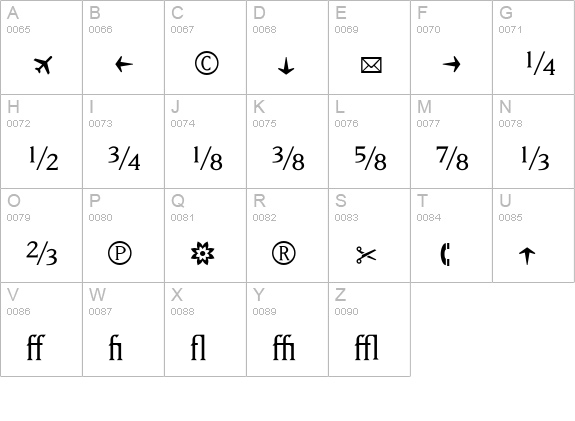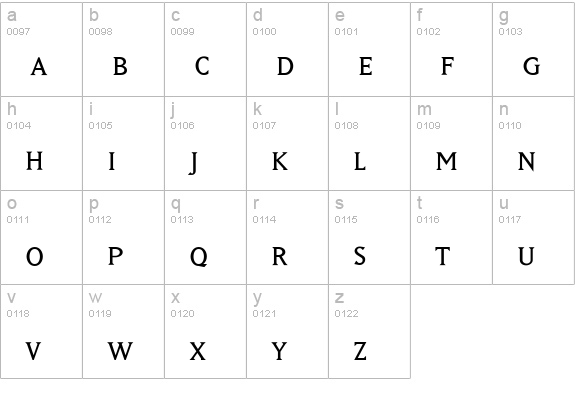
MatrixFractions-Book Font Details
MatrixFractions-Book is a comfortable, highly readable variant in the MatrixFractions typeface family \xE2\x80\x94 well suited to long-form body text, articles, and editorial content.
MatrixFractions-Book is a sleek and elegant font designed for those who appreciate clean lines and modern aesthetics. With its precise geometric shapes and balanced proportions, this font is perfect for adding a touch of sophistication to any design project. The MatrixFractions-Book font features a unique blend of classic serif elements with a contemporary twist, making it versatile and suitable for a wide range of applications. What sets MatrixFractions-Book apart is not only its visual appeal, but also its functionality. The font is highly legible and easy to read, making it ideal for body text, headlines, and everything in between. Whether you're designing a website, creating a brochure, or working on a branding project, MatrixFractions-Book is sure to elevate your design to the next level. Best of all, MatrixFractions-Book is available for free download at FontsMarket.com. This means you can start using this high-quality font in your projects right away, without having to worry about any additional costs. Don't miss out on the opportunity to enhance your designs with the stylish and versatile MatrixFractions-Book font - download it today and see the difference it can make!